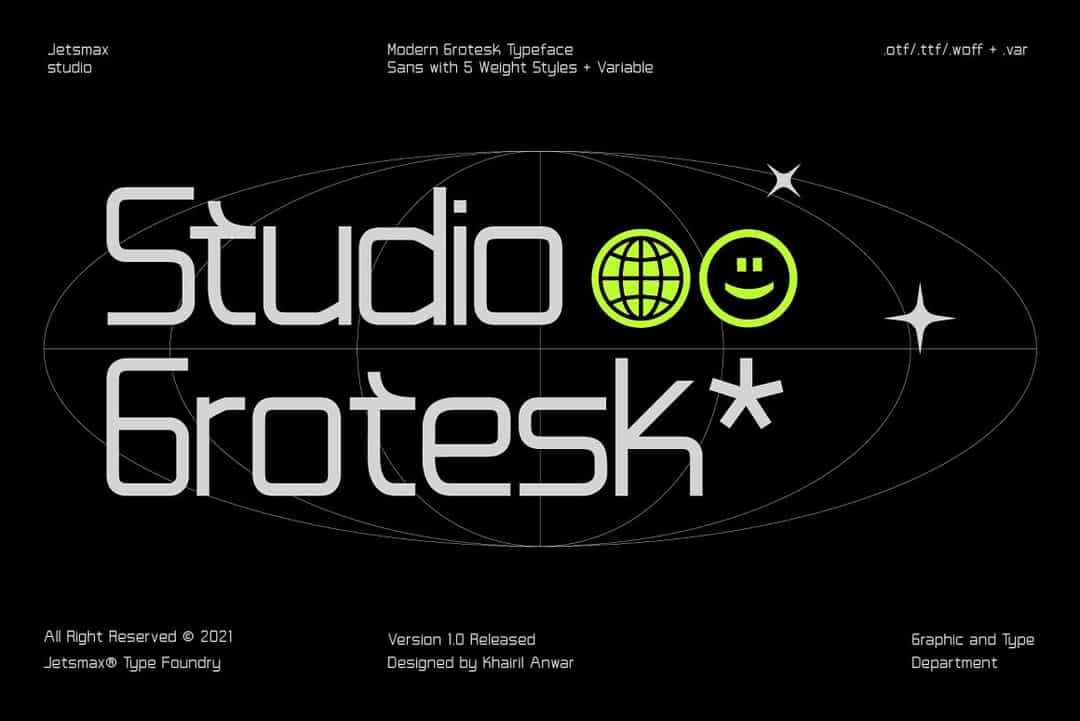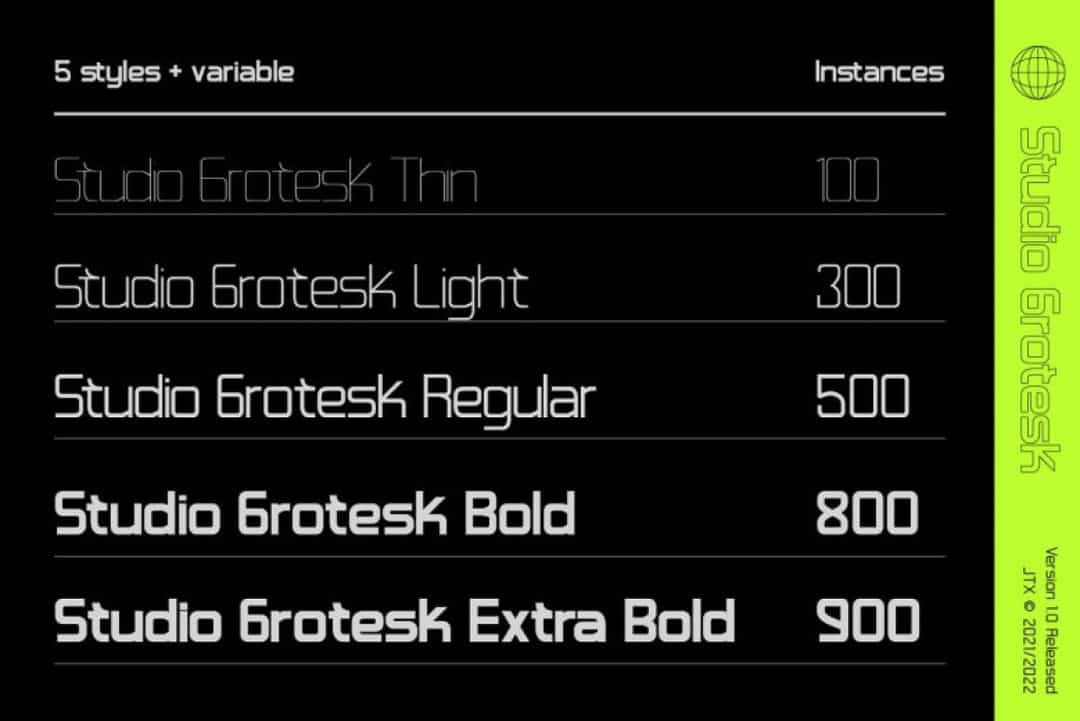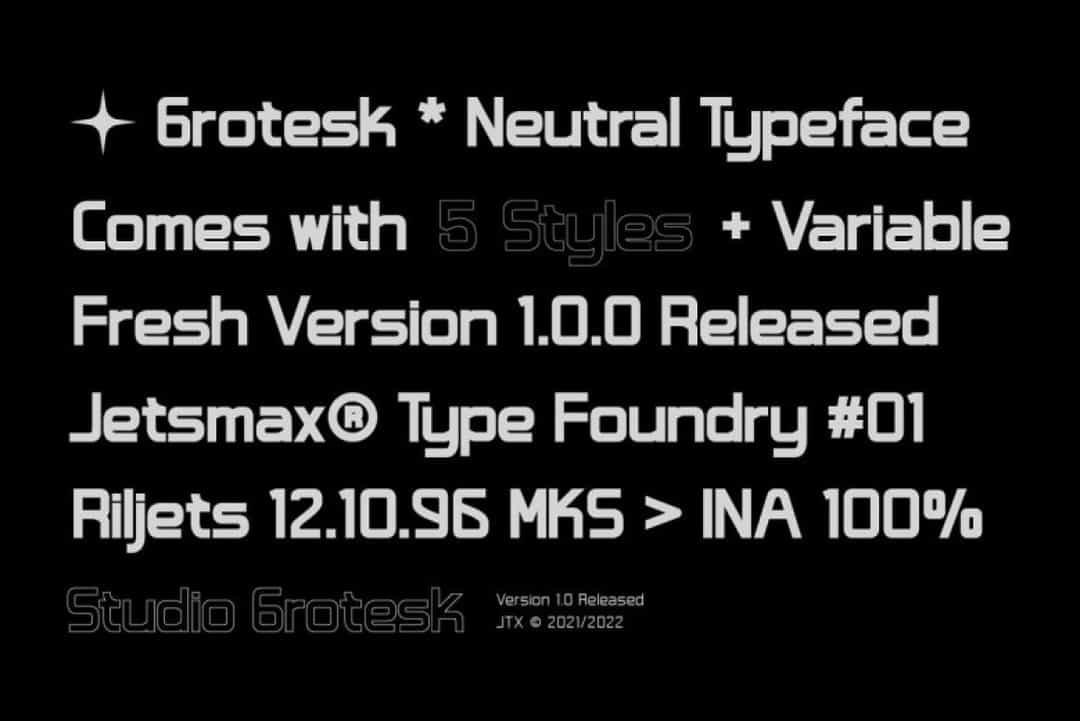
Studio Groteskis is an eye-catching contemporary sans typeface with an edge, perfect for multipurpose use in branding or editorial applications. Featuring over 500 Glyphs arranged across five styles and weight options, its elegant style will draw readers’ attention with ease. It can also be used as part of branding strategies or editorial work!